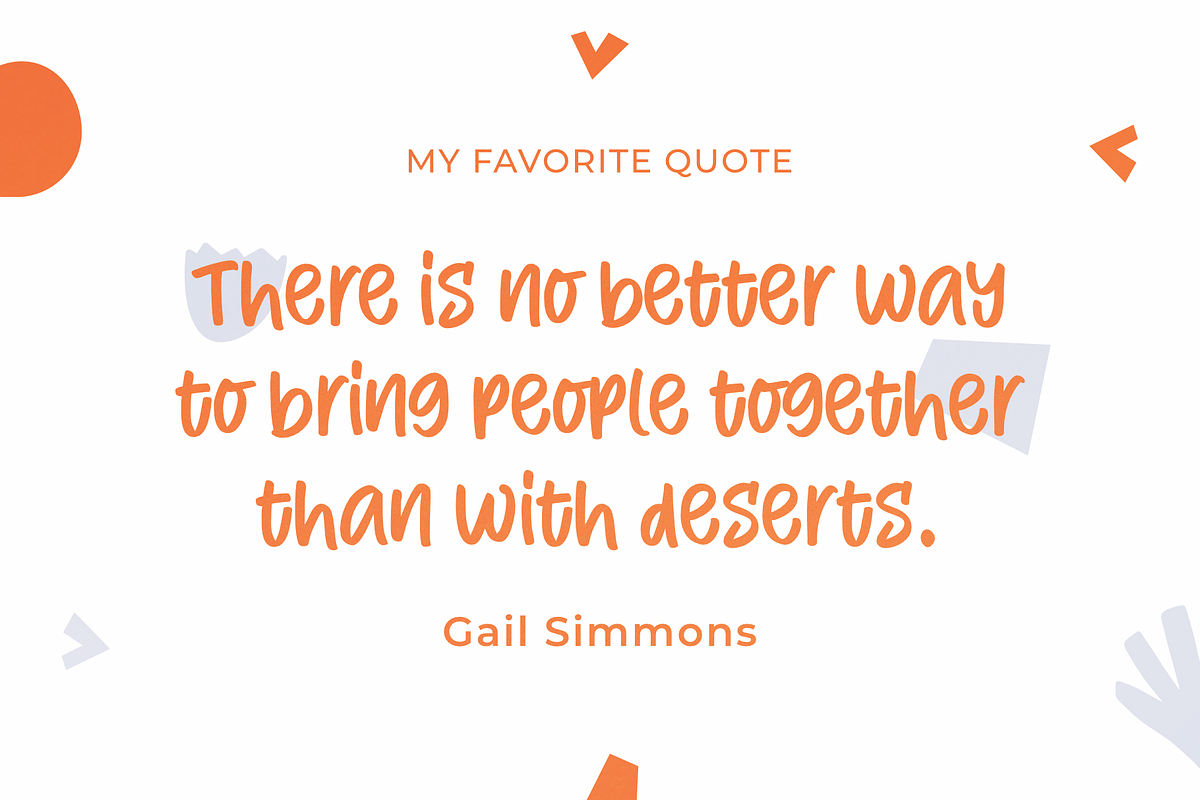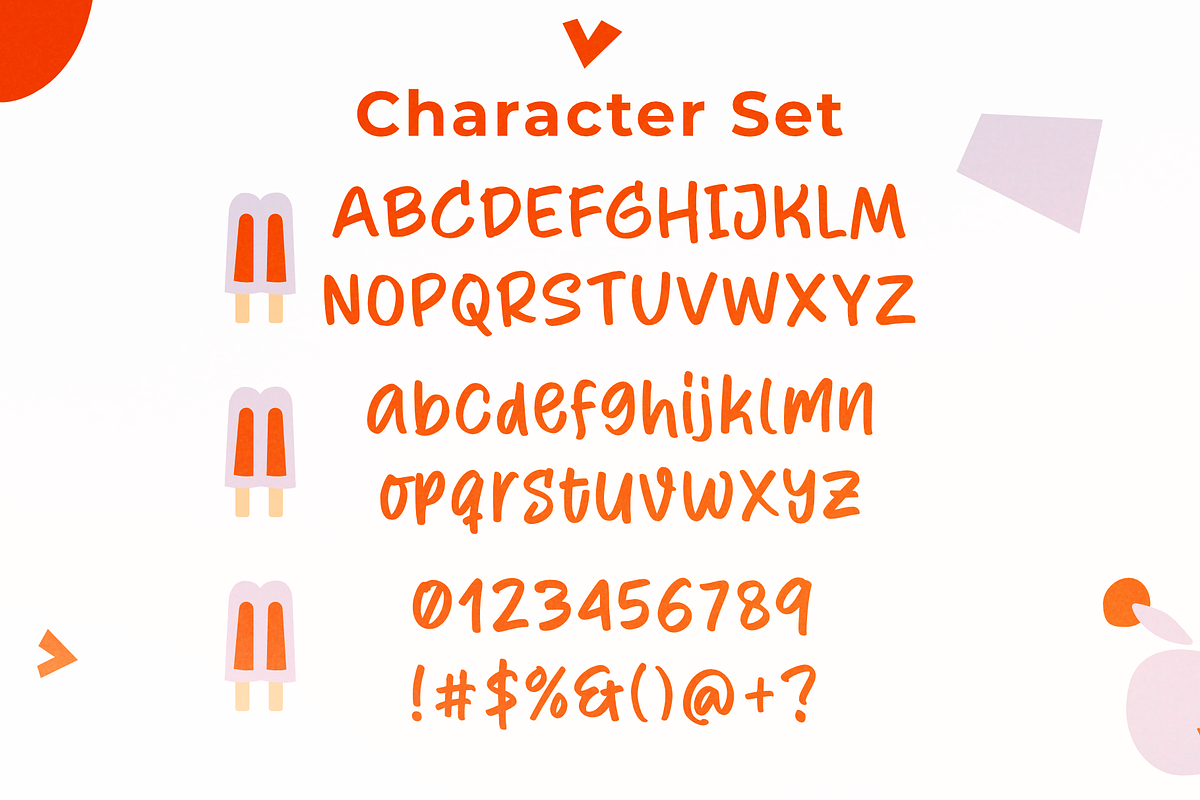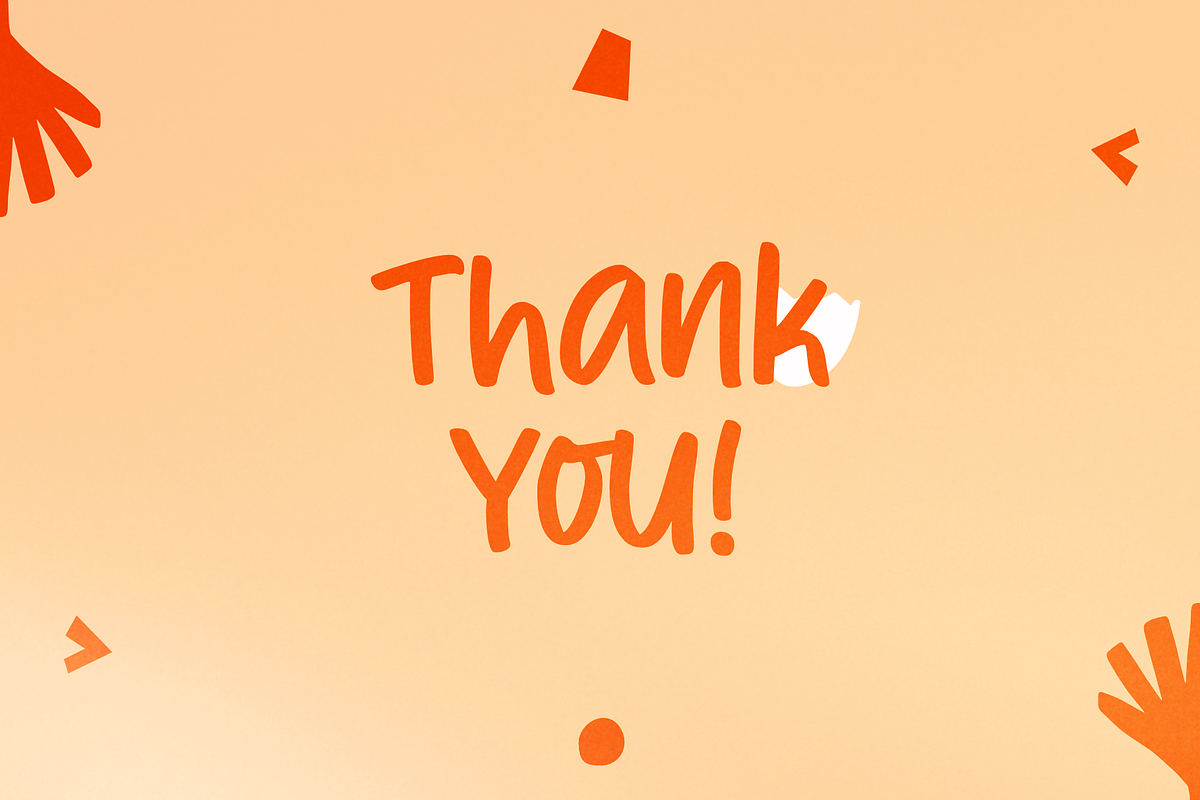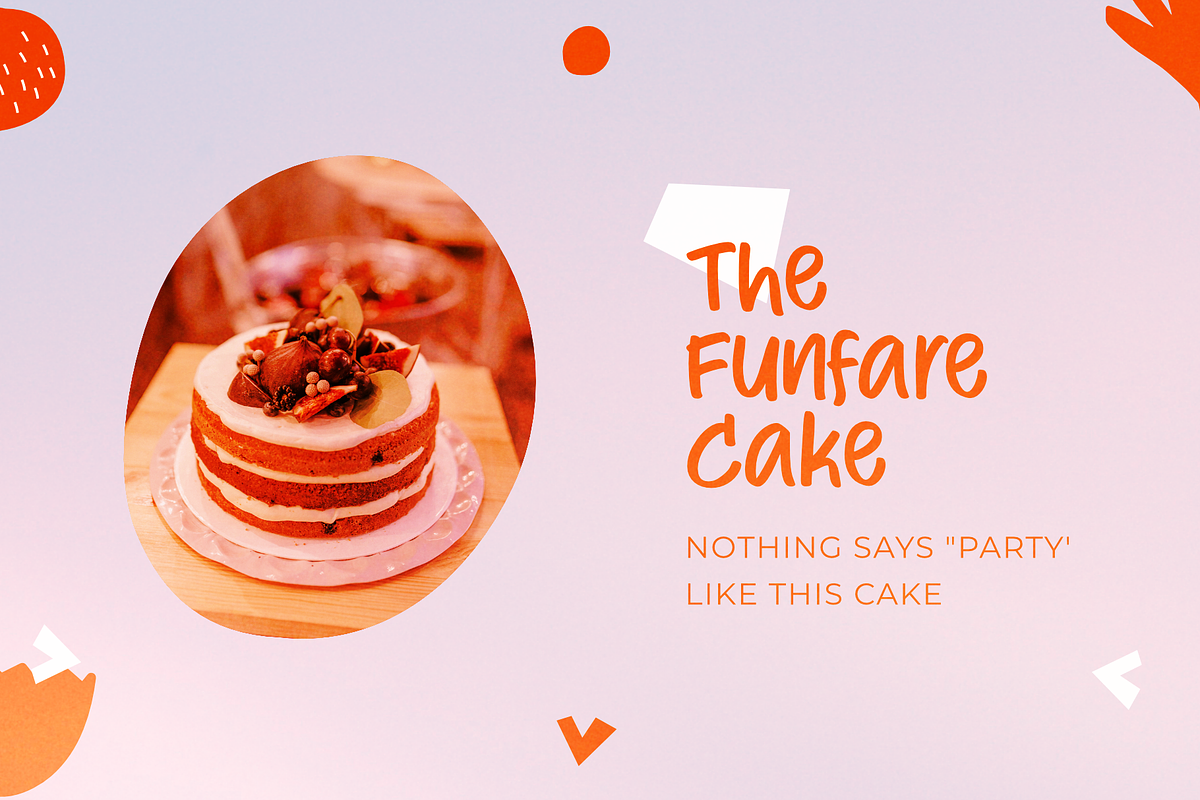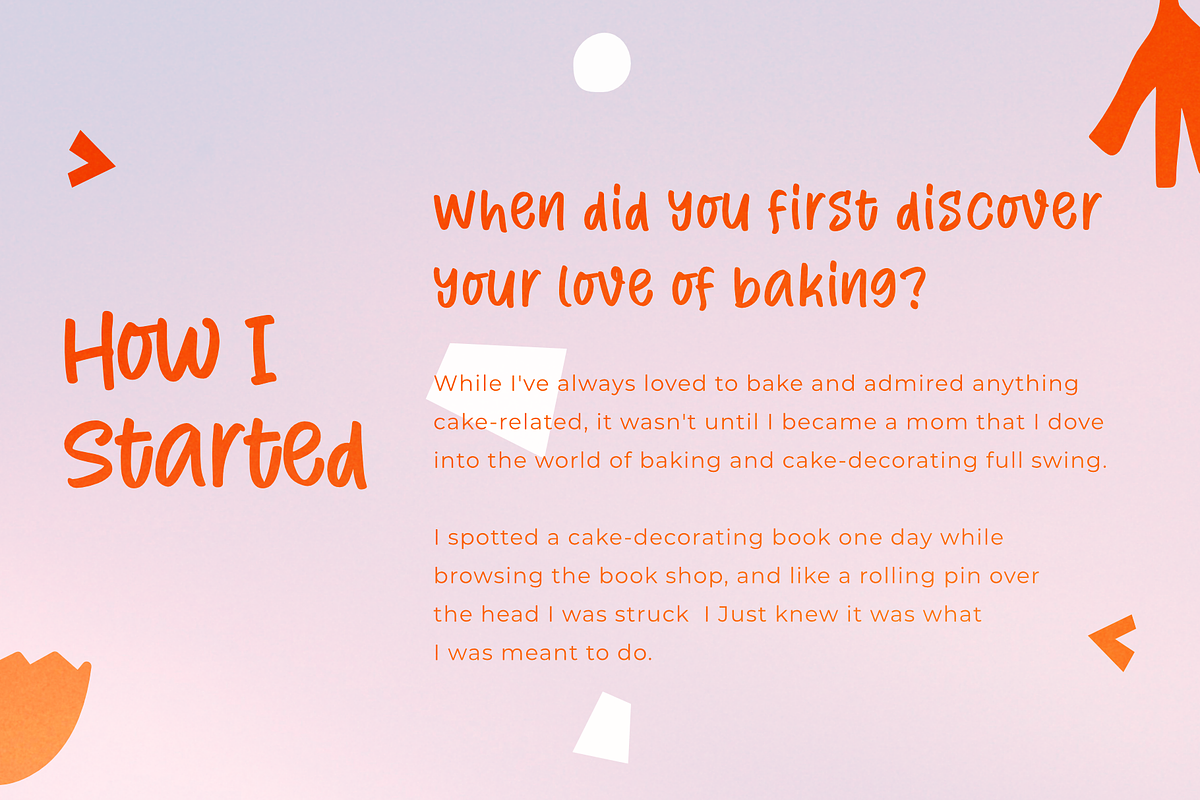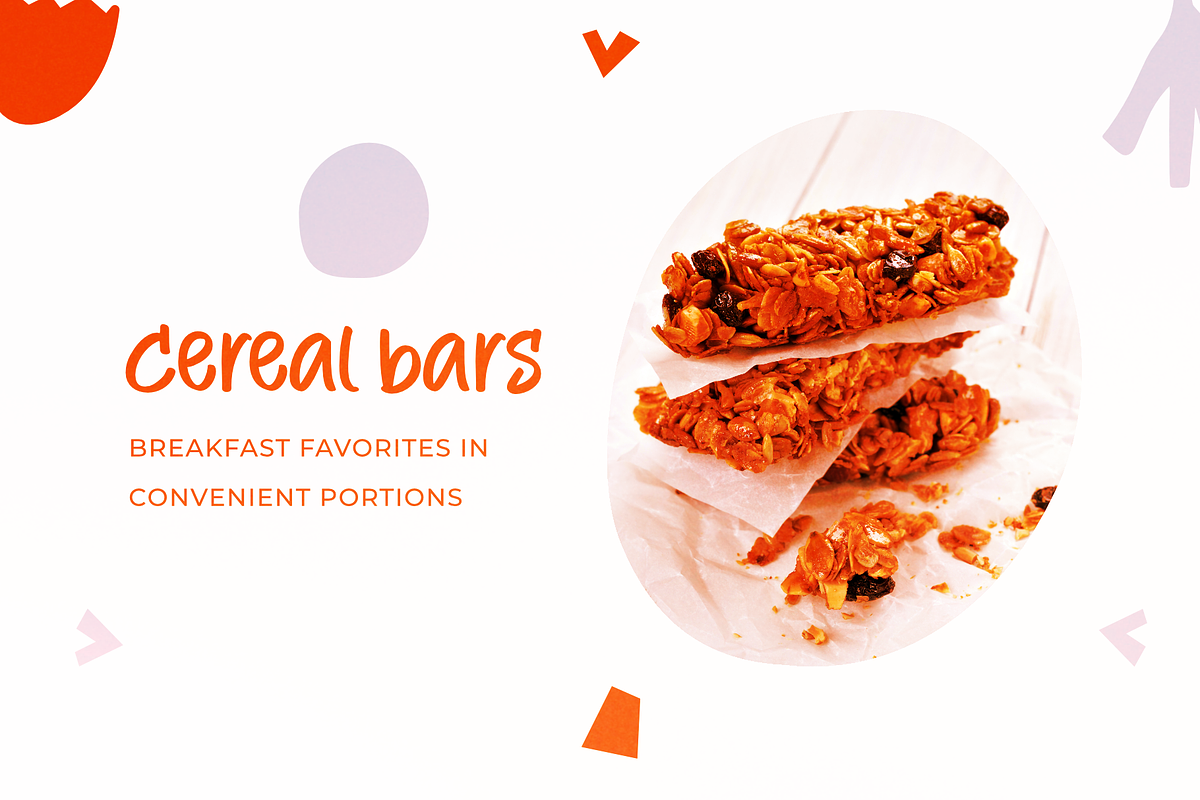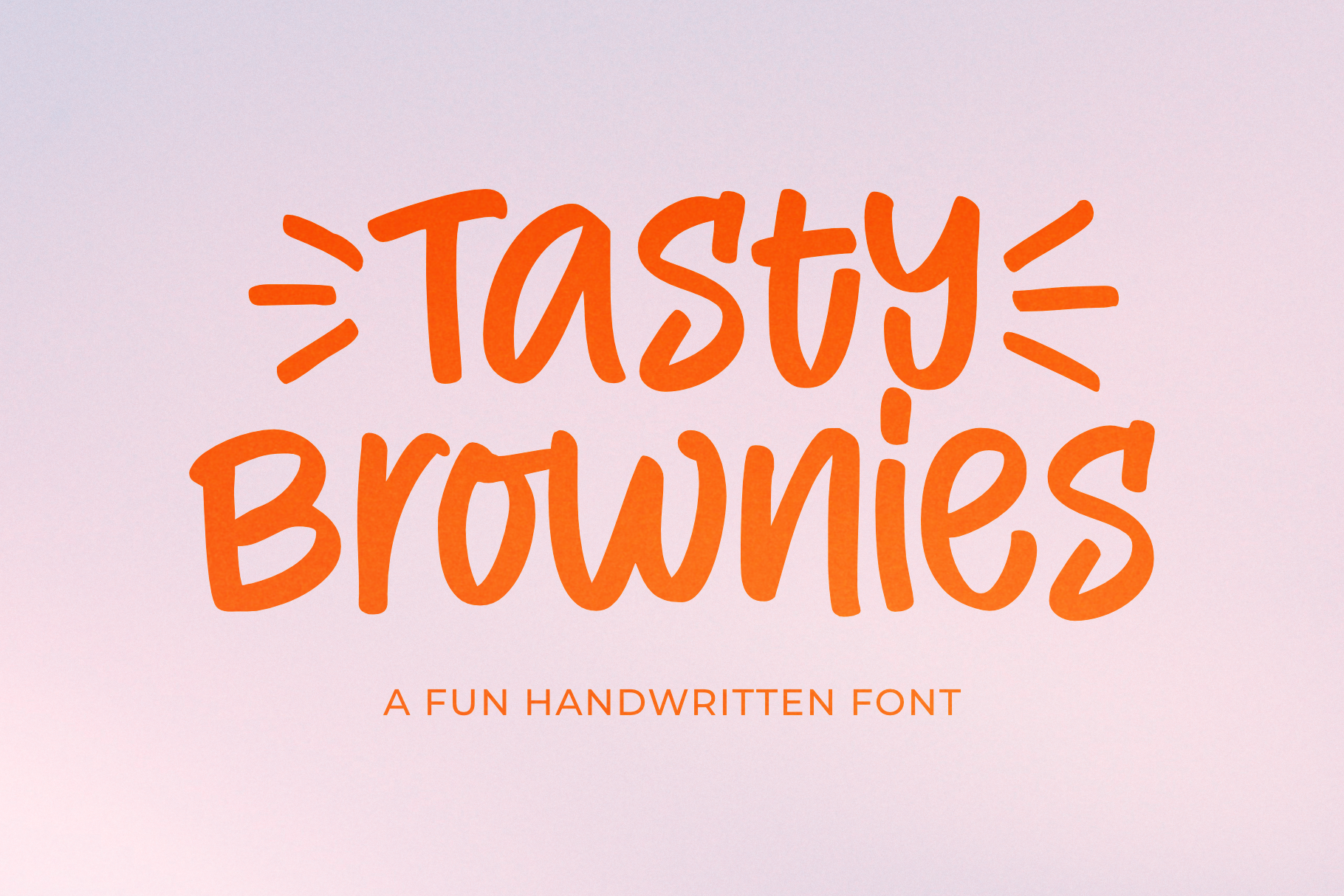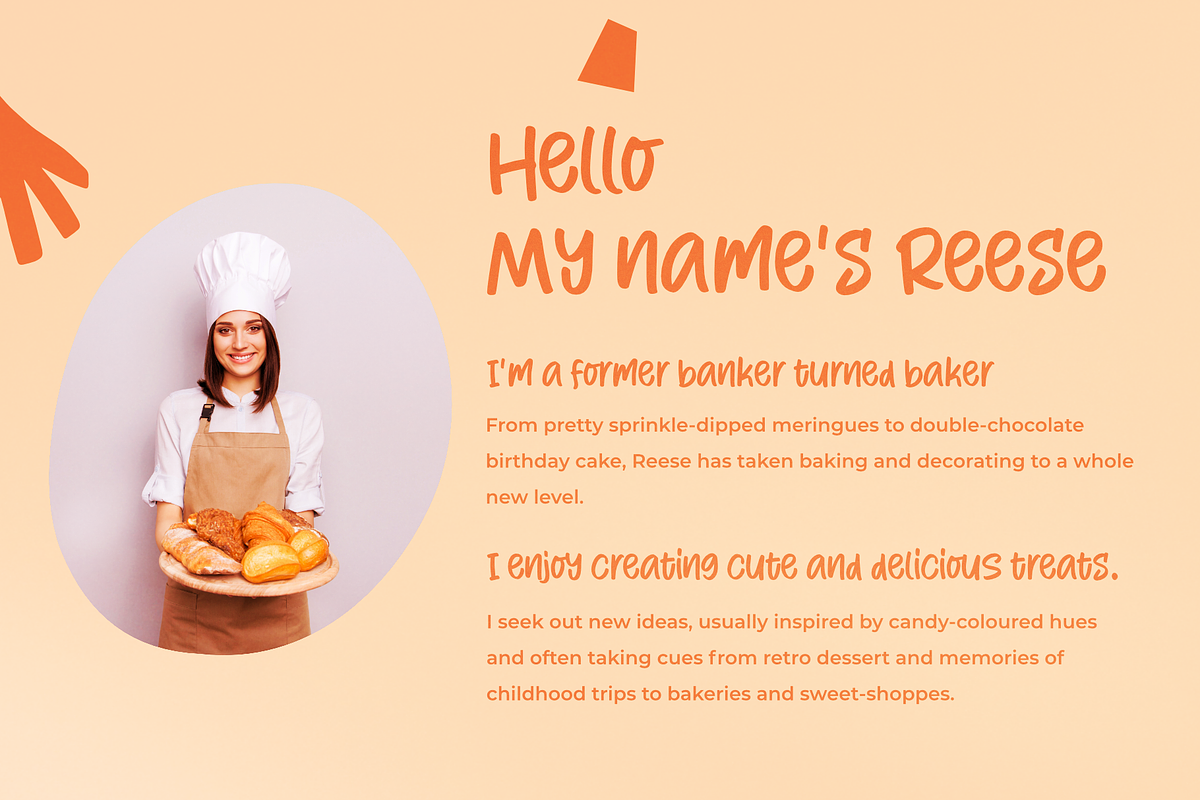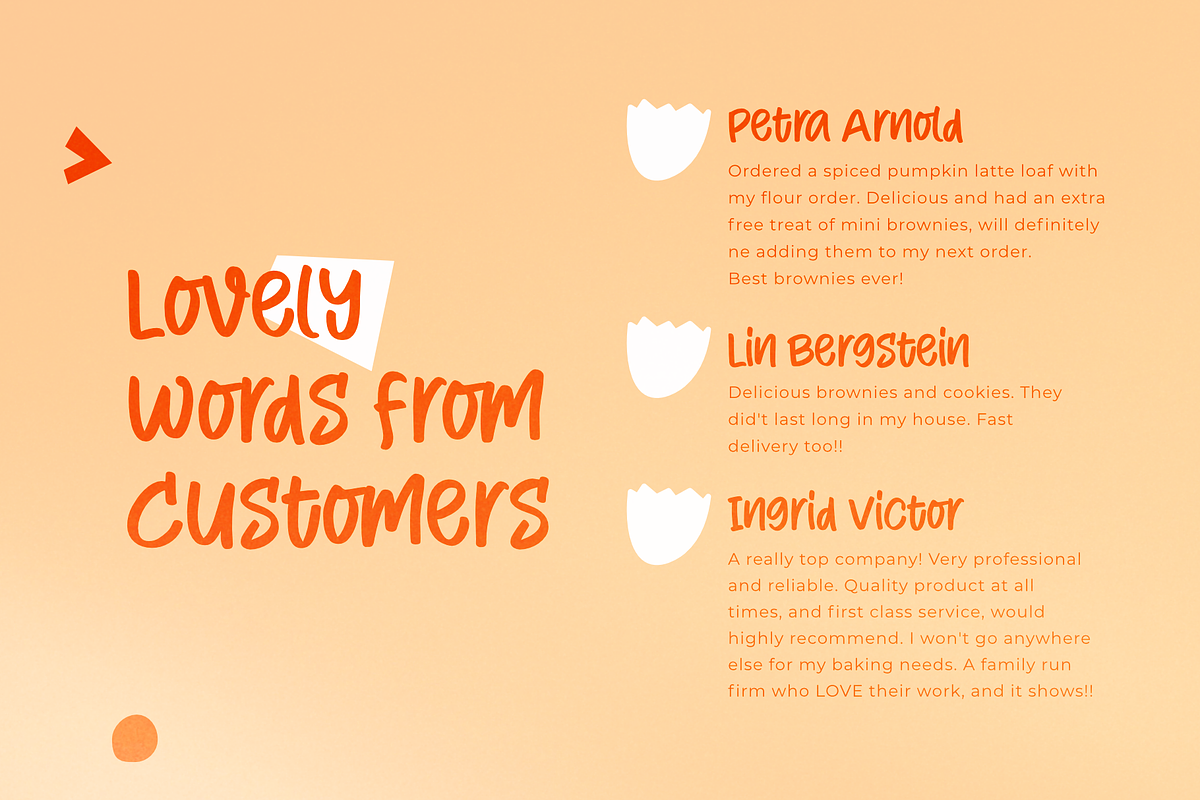
Tasty Brownies - a Fun Font
Tasty Brownies is a whimsical and friendly handwritten font. Whether you’re looking for fonts for Instagram or scripts for DIY projects, this font will turn any creative idea into a true piece of art!